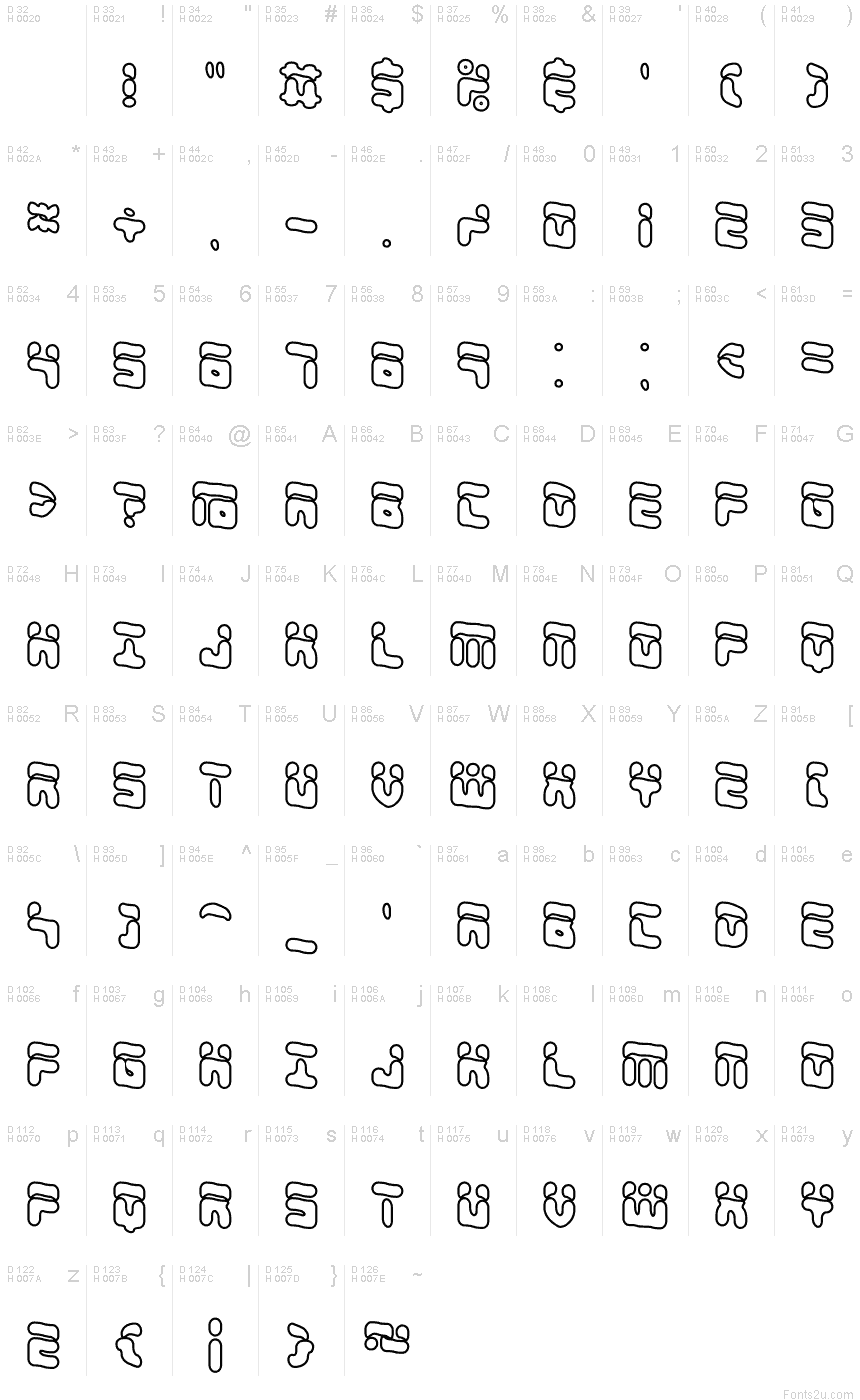
Foreshadow OL BRK
Foreshadow OL is a bold and groovy display font that exudes a distinct retro-futuristic vibe. Designed by ÆNIGMA FONTS, this outlined typeface captivates with its striking visual presence. The unique curves and angles of its letterforms evoke a sense of movement and energy, making it an ideal choice for eye-catching headings, logos, and branding applications. Foreshadow OL's versatility shines through its ability to seamlessly blend vintage aesthetics with a modern, playful flair.
Its bold and distinctive style lends itself well to a variety of design settings, from retro-inspired layouts to futuristic-themed compositions.